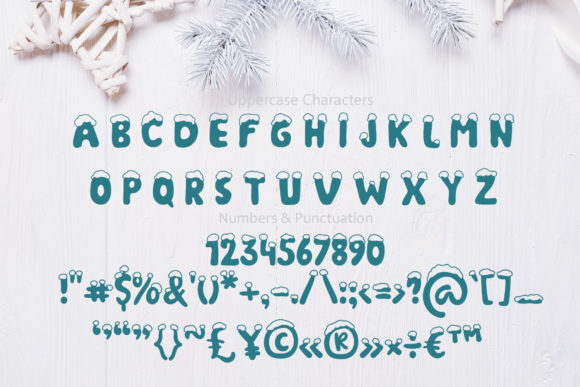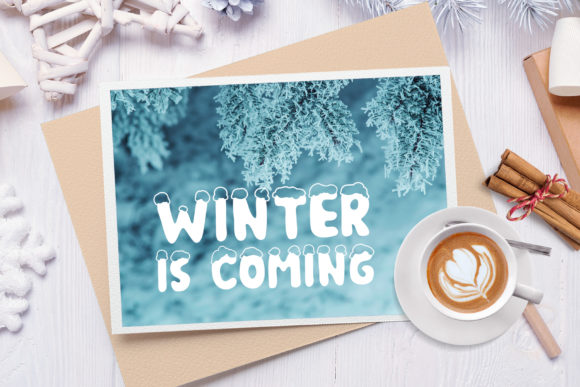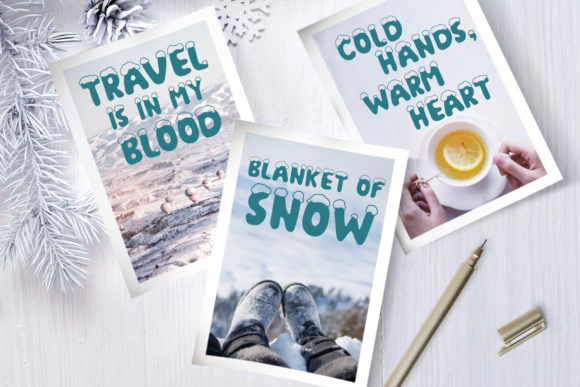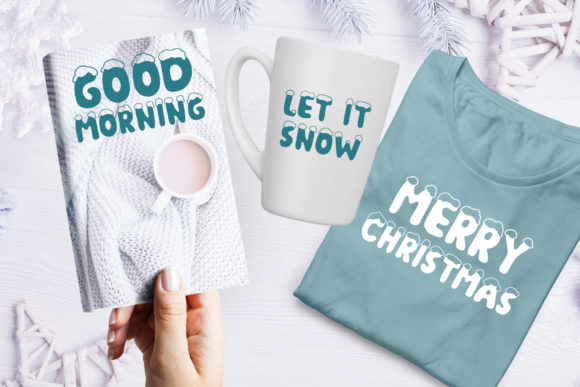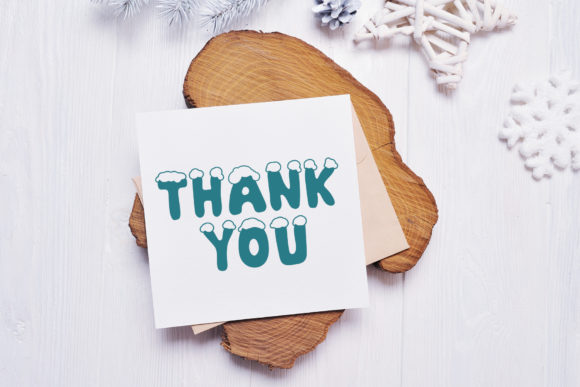
Christmas Snow Font
Christmas Snow is a fun and incredibly neat display font. Ideal for winter activities, this font will instantly become your go-to choice.